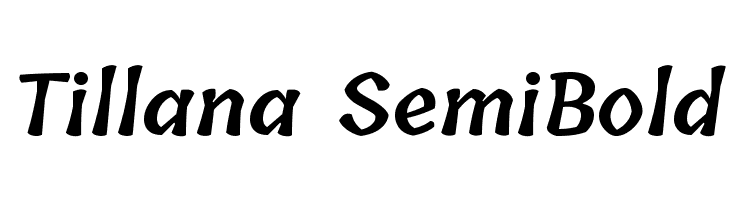
A lively and dynamic semi-bold script font with smooth curves and a playful appearance.
A bold, playful font with a handwritten, dynamic style.
A lively, handwritten-style font with smooth, fluid strokes and moderate contrast.
A bold, playful handwritten-style font with rounded characters.